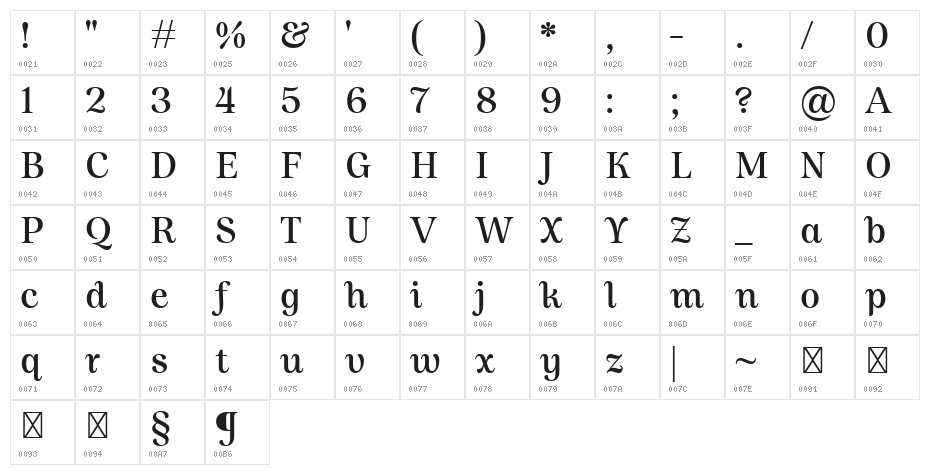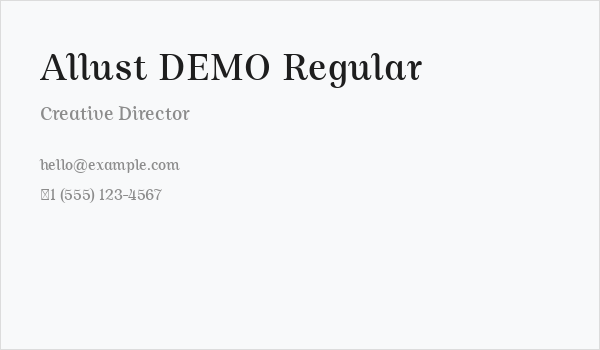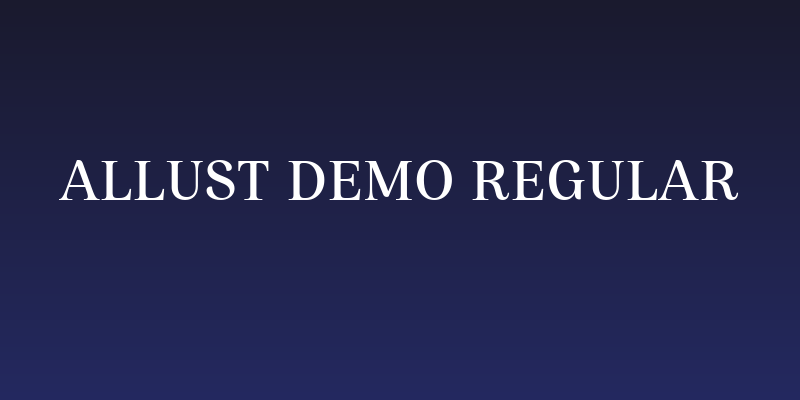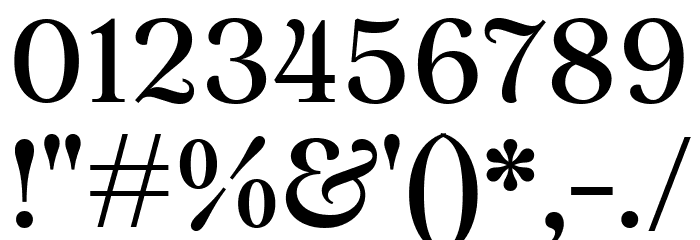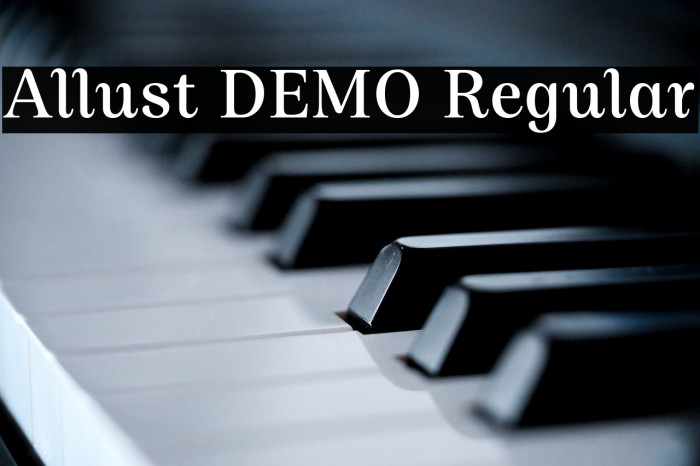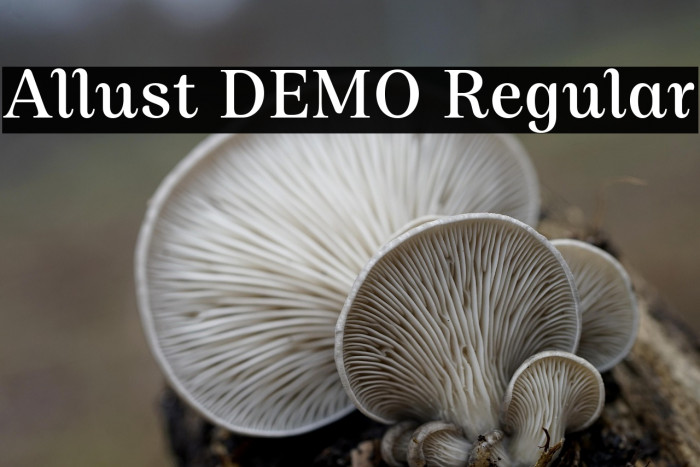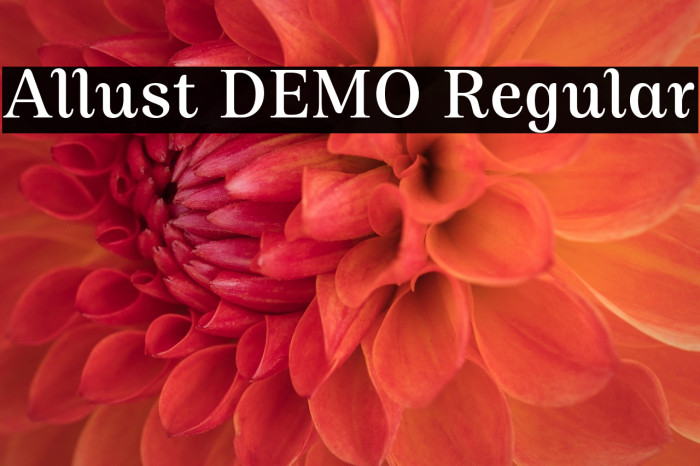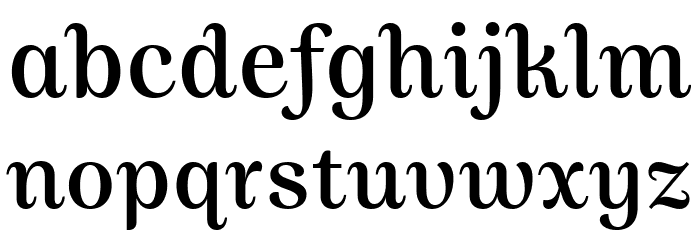
Allust DEMO Regular Font
Allust DEMO Regular Description
This font features a classic serif style with a modern twist. The uppercase letters are bold and commanding, while the lowercase letters have a subtle elegance with rounded edges. The numerals are clear and distinct, making them easy to read. Special characters are designed with a touch of flair, adding personality to the overall appearance. The font maintains a consistent weight throughout, providing a balanced look. Its versatility makes it suitable for various design projects, from formal documents to creative branding.
| Proposed Projects | Ideal for book covers, editorial design, branding, and formal invitations. |